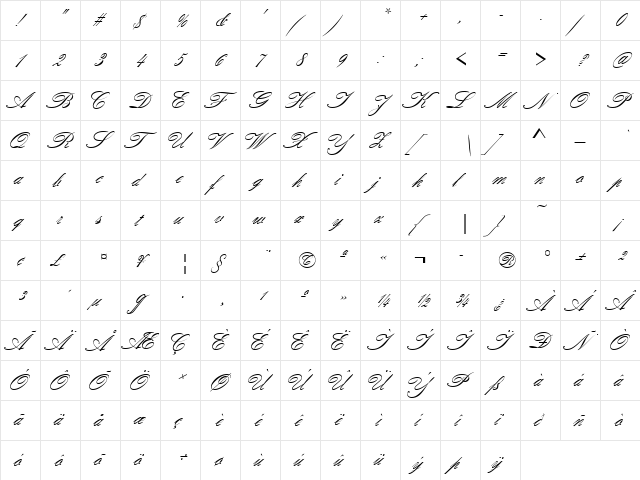
ClassicScrNo1JoiURWDReg Regular
Design Context for ClassicScrNo1JoiURWDReg Typeface
ClassicScrNo1JoiURWDReg wears its vintage influences proudly, with letterforms that recall mid-century signage, classic packaging, and nostalgia-driven design.
Font Pairing: Combine ClassicScrNo1JoiURWDReg with a simple slab or neutral sans — period-accurate companions reinforce the vintage feel without competing for attention.
Pro Tip: Use ClassicScrNo1JoiURWDReg for headlines and pull quotes rather than body copy — its personality is best appreciated in short, focused bursts.